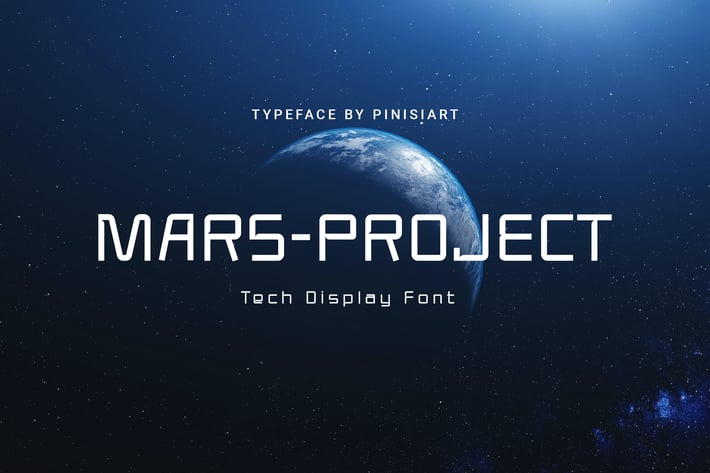
Mars Project - Techno Display Font
Time of space exploration is here. and Mars Project is the perfect font for it. The clear and crisp shapes of the letter, represent the fast moving tech in the future.
Suit perfectly for future and science segmented magazine, poster, movie title, music poster, youtube covers, youtube thumbnails, social media page covers and so on...